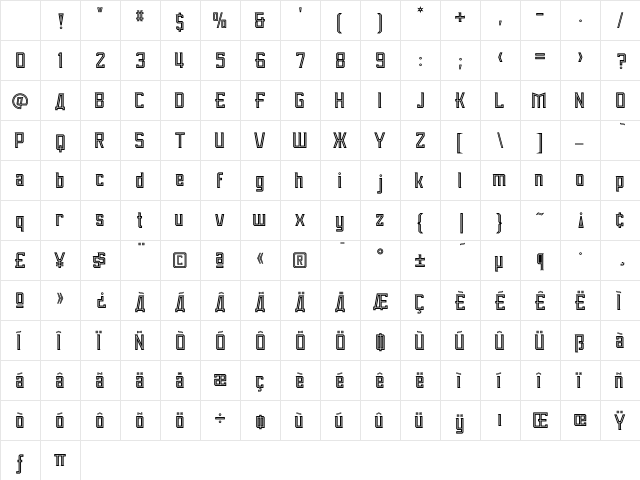
Complete Aleksei Inline glyph index. Displaying only characters natively supported by Aleksei Inline font.
Aleksei is built around its visual character rather than neutral utility - its distinctive forms are designed to make an impression at display sizes.
Font Pairing: Pair with a clean neutral sans-serif for body copy to let Aleksei's character lead without overwhelming the composition.
Pro Tip: Use Aleksei exclusively at display sizes - it was designed to be seen, not read at length. Let a neutral companion handle body copy.